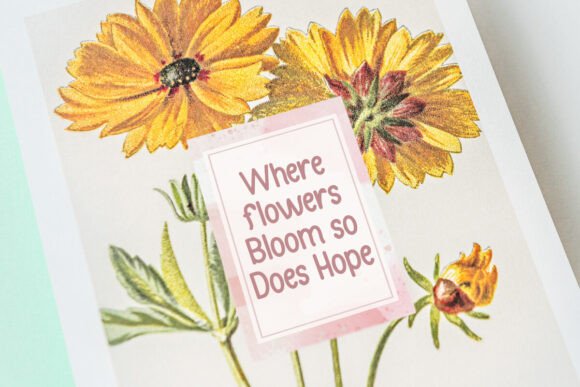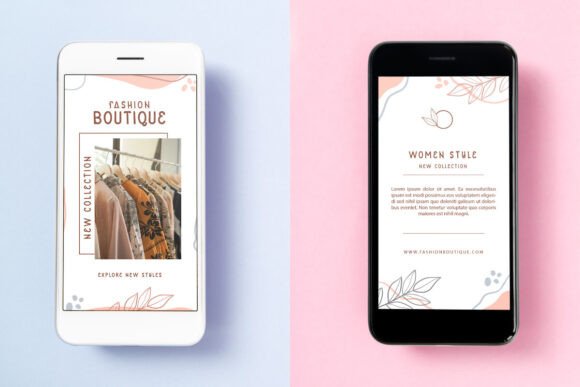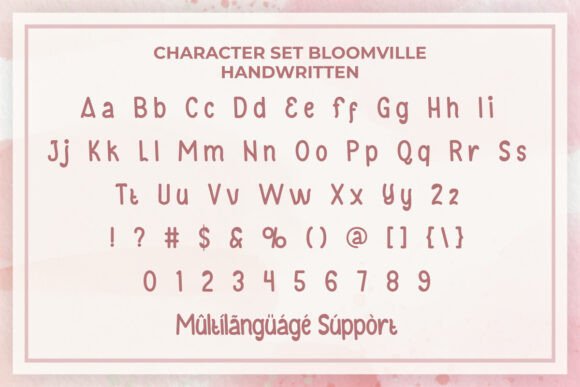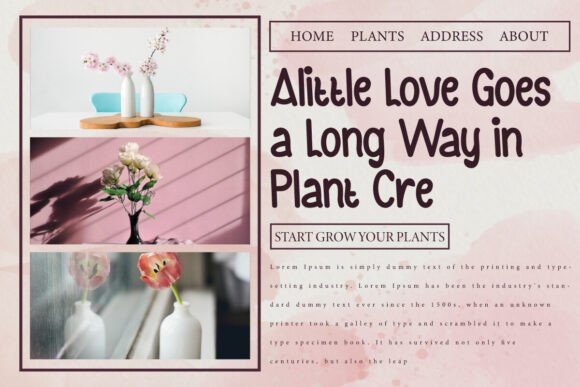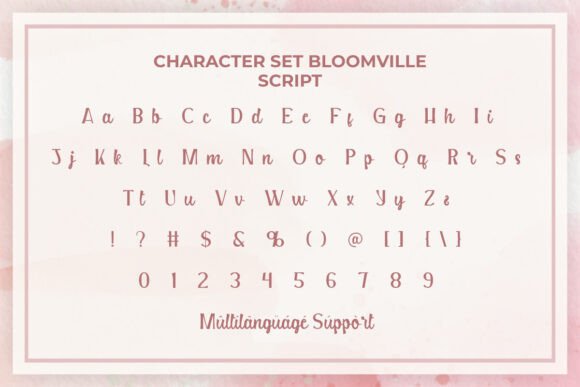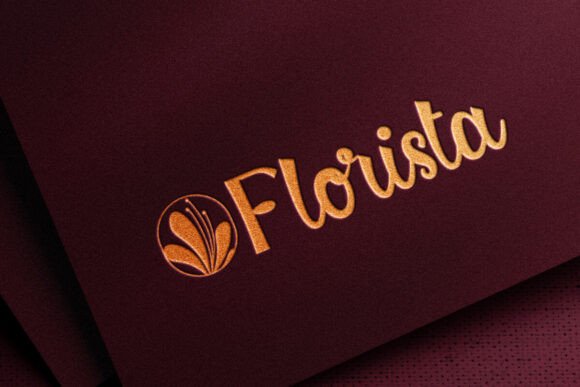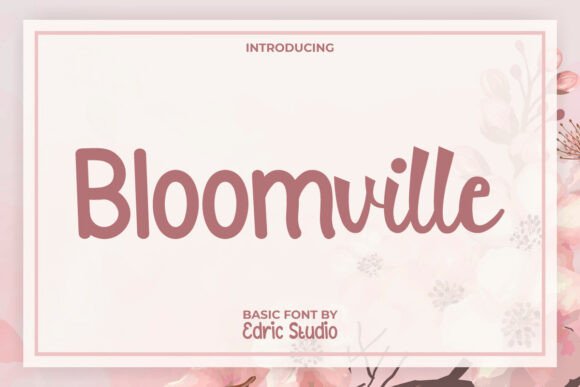
Bloomville Font: The Ultimate Cute and Playful Font for Designers and Crafters
Are you tired of using the same old fonts in your designs? Do you want to add a touch of whimsy and playfulness to your projects? Look no further than Bloomville Font, a delightful kids’ handwriting and casual calligraphic font that’s perfect for designers and crafters of all levels.
A Font with Two Looks in One
Bloomville Font is a unique and versatile font that offers two distinct looks in one. Its kids’ handwriting style is perfect for creating playful and fun designs, while its casual calligraphic style adds a touch of elegance and sophistication. This dual personality makes Bloomville Font an excellent choice for a wide range of design projects, from invitation flyers and posters to logos and packaging design.
Why Choose Bloomville Font?
- Unique and playful style: Bloomville Font adds a touch of whimsy and fun to any design, making it perfect for projects that need a playful edge.
- Versatile and adaptable: With two distinct looks in one font, Bloomville Font can be used for a wide range of design projects, from playful and fun to elegant and sophisticated.
- Easy to read and use: Despite its playful style, Bloomville Font is easy to read and use, making it perfect for body text and headlines.
Tips for Using Bloomville Font